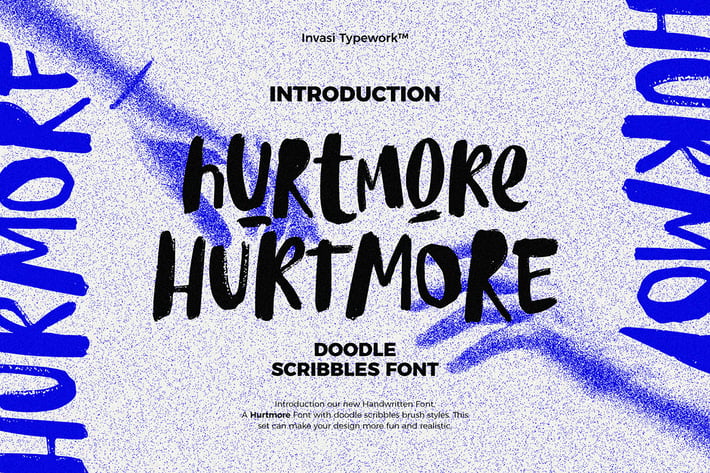
Hurtmore - Scribbles Font
Do you want your visuals to be louder? Hurtmore typeface can make your visuals more powerful. A fun handwritten design with a realistic scribble style. It can add a sense of loudness and boldness to your visuals. Hurtmore also features a unique stylistic alternating character. You can mix and match it however you like!
It is perfect for packaging, posters, quotes, editorial, and branding projects that need a bold impact.
- Alternates & Ligature